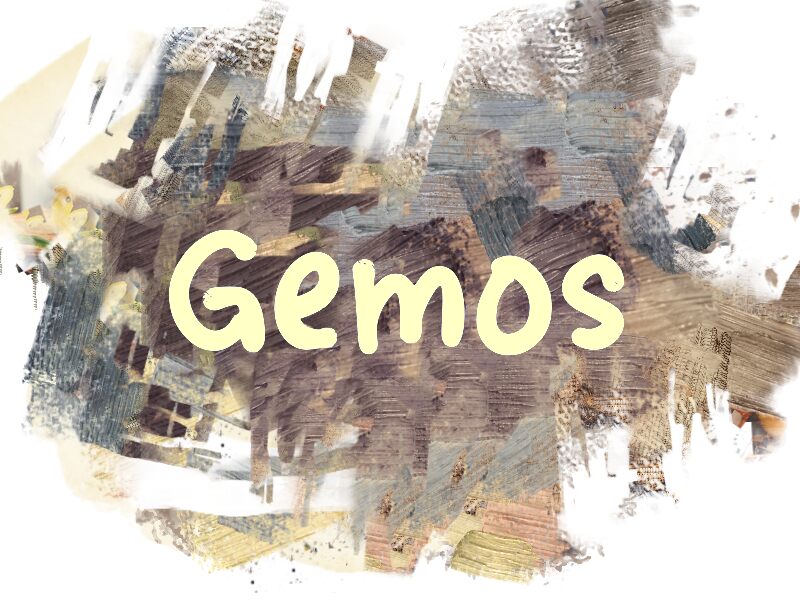
Gemos
Gemos is a captivating handwritten font crafted by designer wep. With its organic, flowing strokes and playful character shapes, this typeface exudes a sense of warmth and personality. The irregular baseline and varied letter sizes lend an authentic, handcrafted feel, evoking a charming, artisanal aesthetic. Gemos' distinctive style seamlessly blends elegance and whimsy, making it a versatile choice for a wide range of design projects.
This font's versatility shines through its ability to adapt to diverse applications, from branding and packaging to editorial design and stationery. Gemos' expressive qualities lend themselves particularly well to creating a sense of personal connection, making it an excellent choice for wedding invitations, greeting cards, and other intimate communications. Its playful nature also makes it a compelling option for children's products, educational materials, and lifestyle-focused designs.